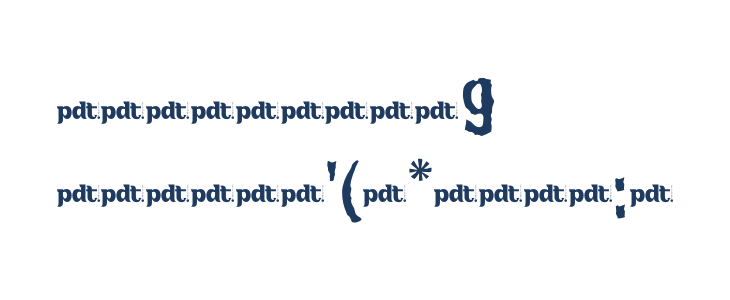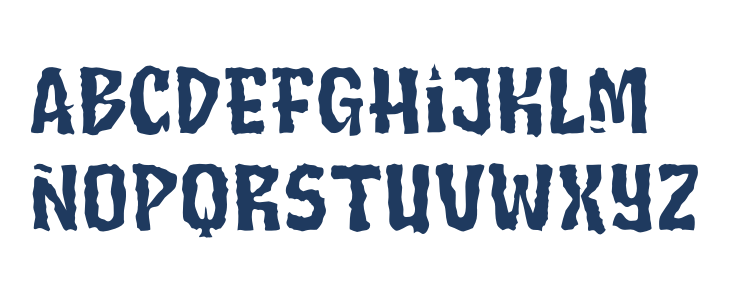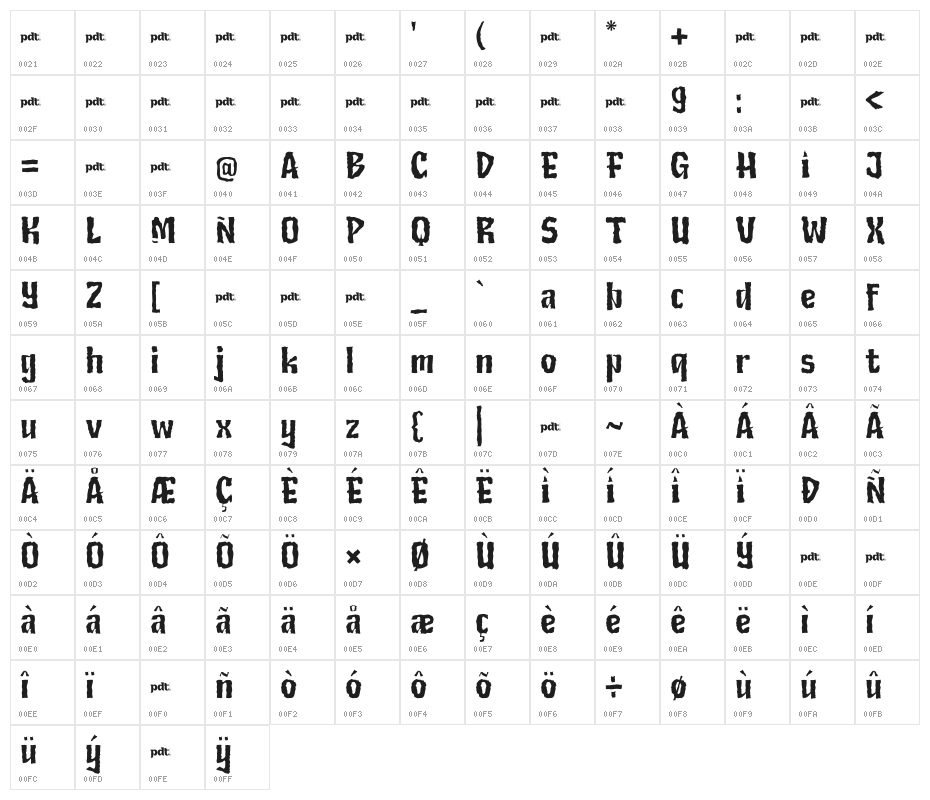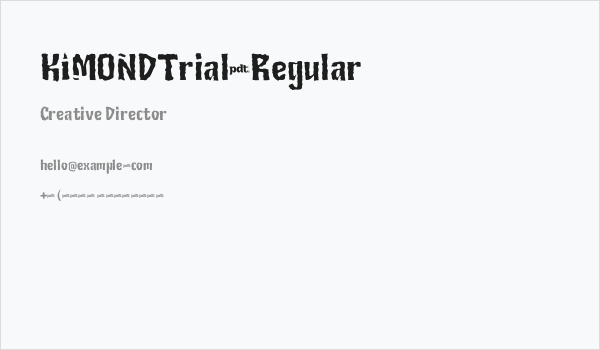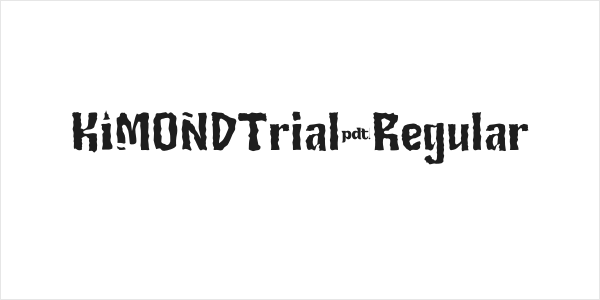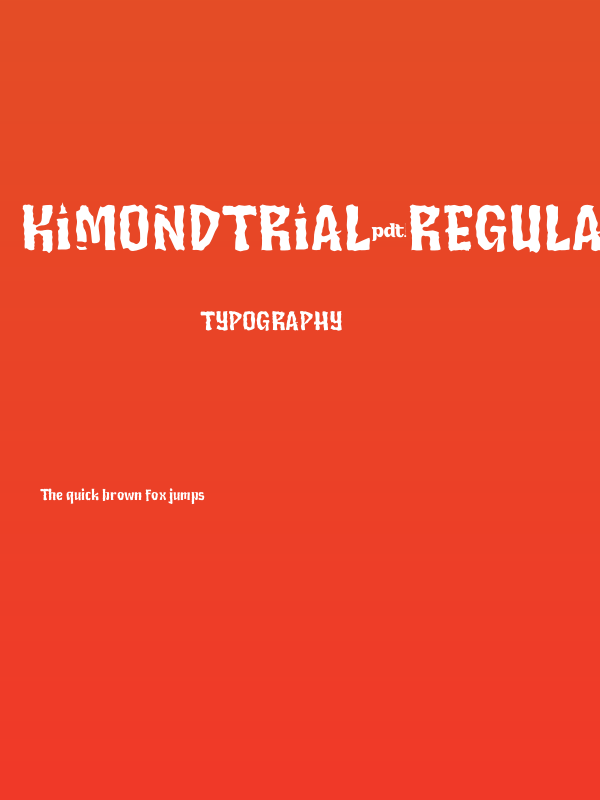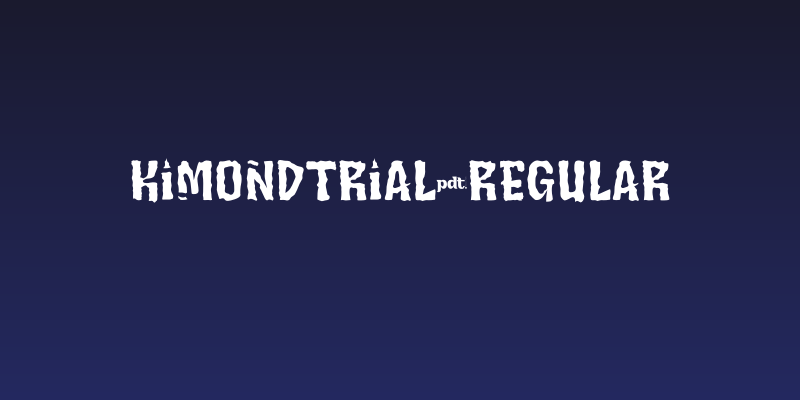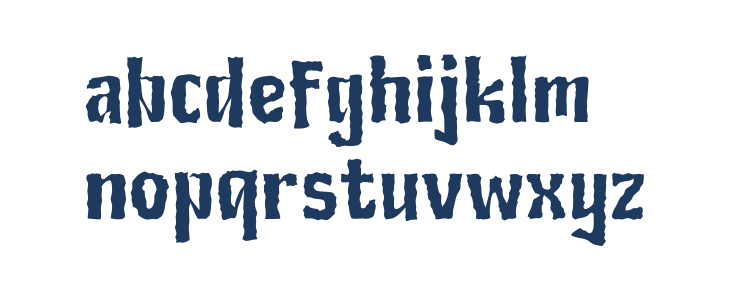
KIMONDTrial-Regular Font
KIMONDTrial-Regular Description
A bold, textured display typeface with irregular, jagged edges and a hand-crafted appearance. The letterforms are wide and slightly condensed, with uneven stroke thickness and a rough, organic feel. Uppercase and lowercase characters maintain a consistent rugged style, and the font includes accented characters and basic punctuation.
| Overall Style | Decorative, Handcrafted, Grunge |
| Use Case | Headlines, Posters, Logos, Book Covers |
| Proposed Projects | Posters, horror or thriller book covers, event flyers, branding for edgy or alternative products, album art. |